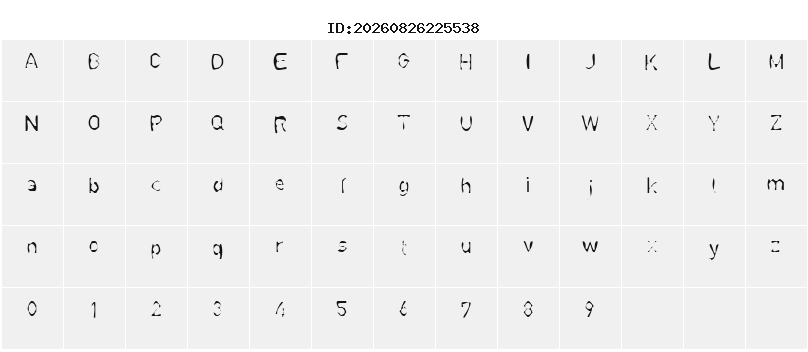
Åderpåk Preview
About Åderpåk.ttf
Åderpåk.ttf is a modern, elegant sans-serif font designed for ultimate readability and visual harmony. Perfect for branding, headlines, web design, and print materials.